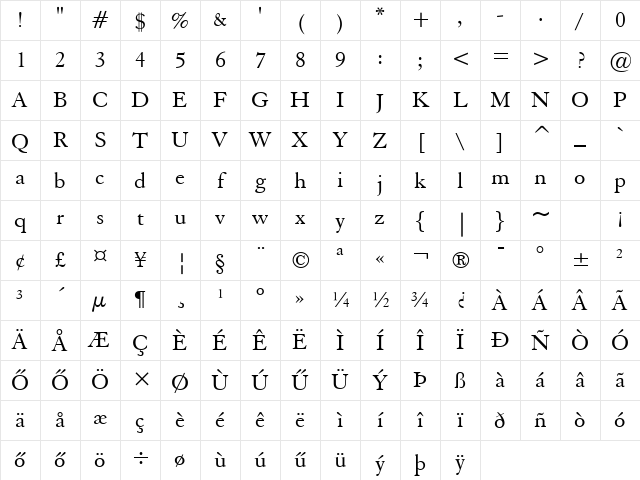
Complete Elegant-Garamond HU Normal glyph index. Displaying only characters natively supported by Elegant-Garamond HU Normal font.
Elegant-Garamond HU is a composed and adaptable typeface that performs quietly and consistently across a wide range of design contexts.